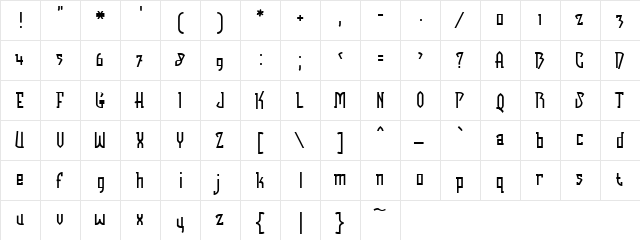
Futurex - Bob Regular
Design Context for Futurex - Bob Typeface
Futurex - Bob has a distinctly futuristic character, with geometric precision and clean angles that feel at home in technology, gaming, and sci-fi contexts.
Pro Tip: Try Futurex - Bob with generous letter-spacing in UI labels and navigation — the geometric forms benefit from room to breathe.